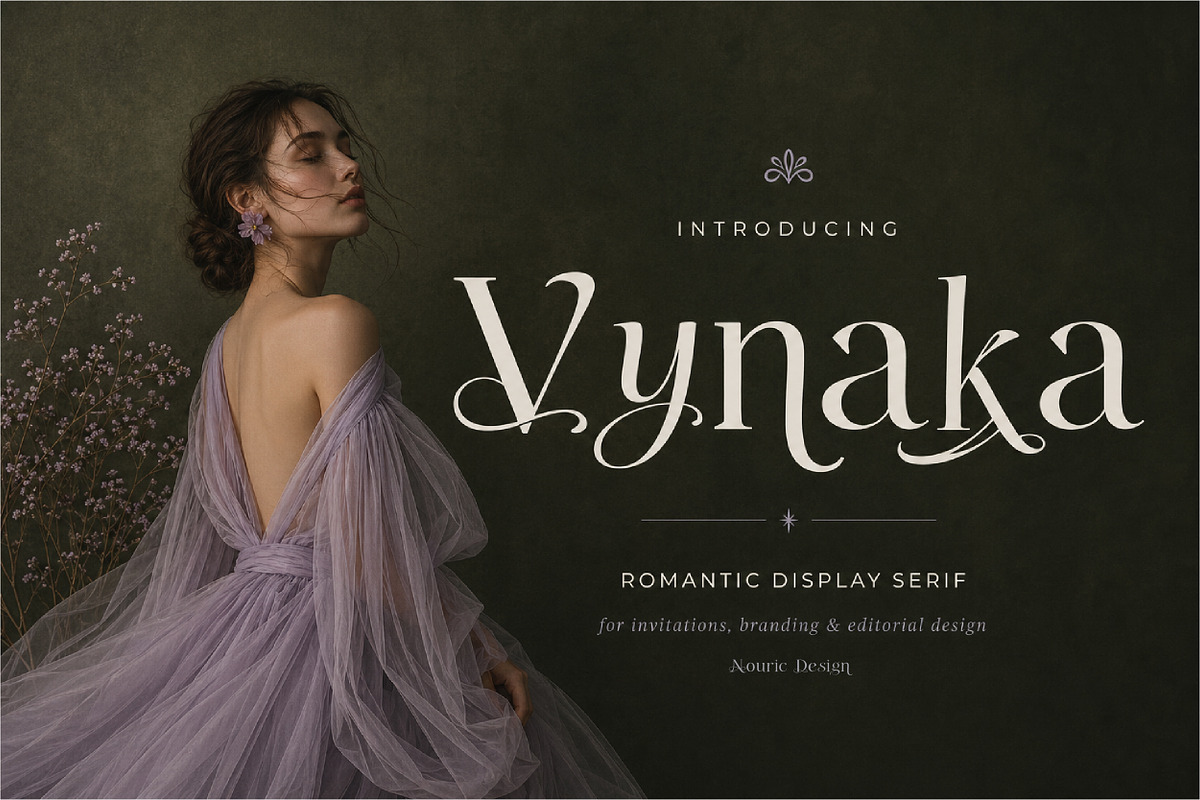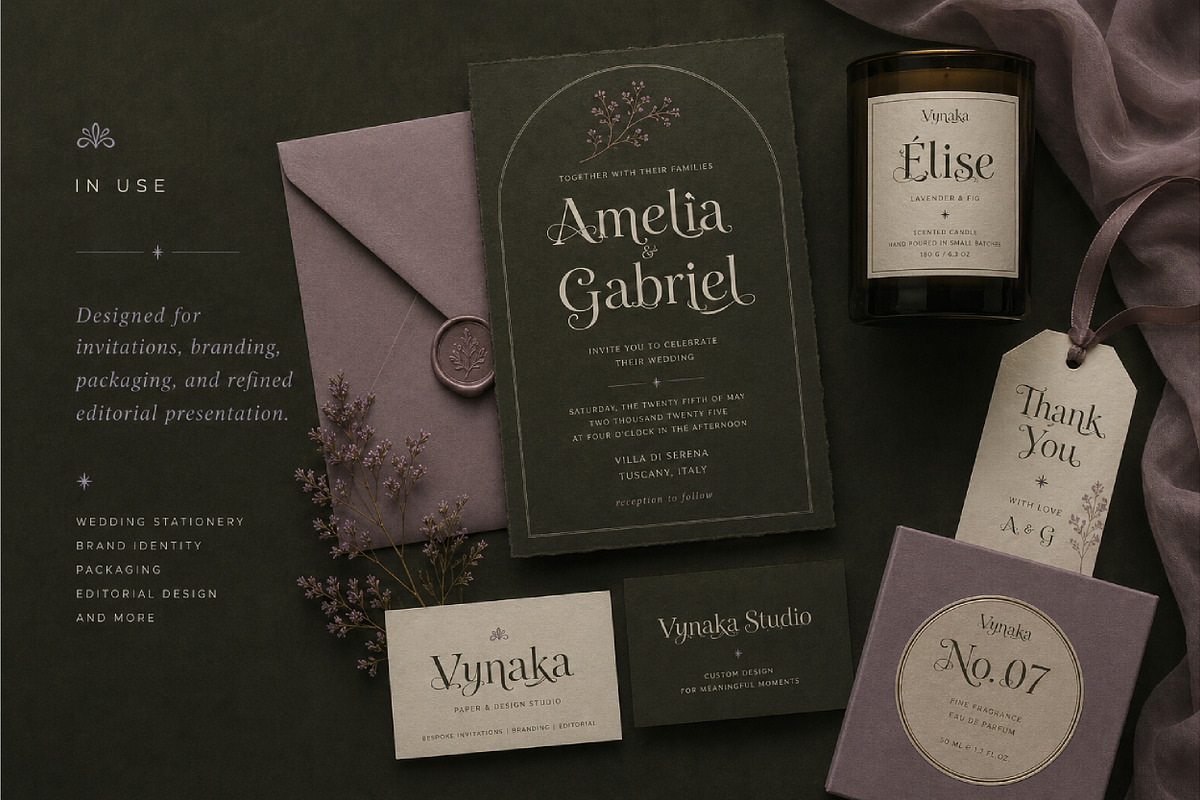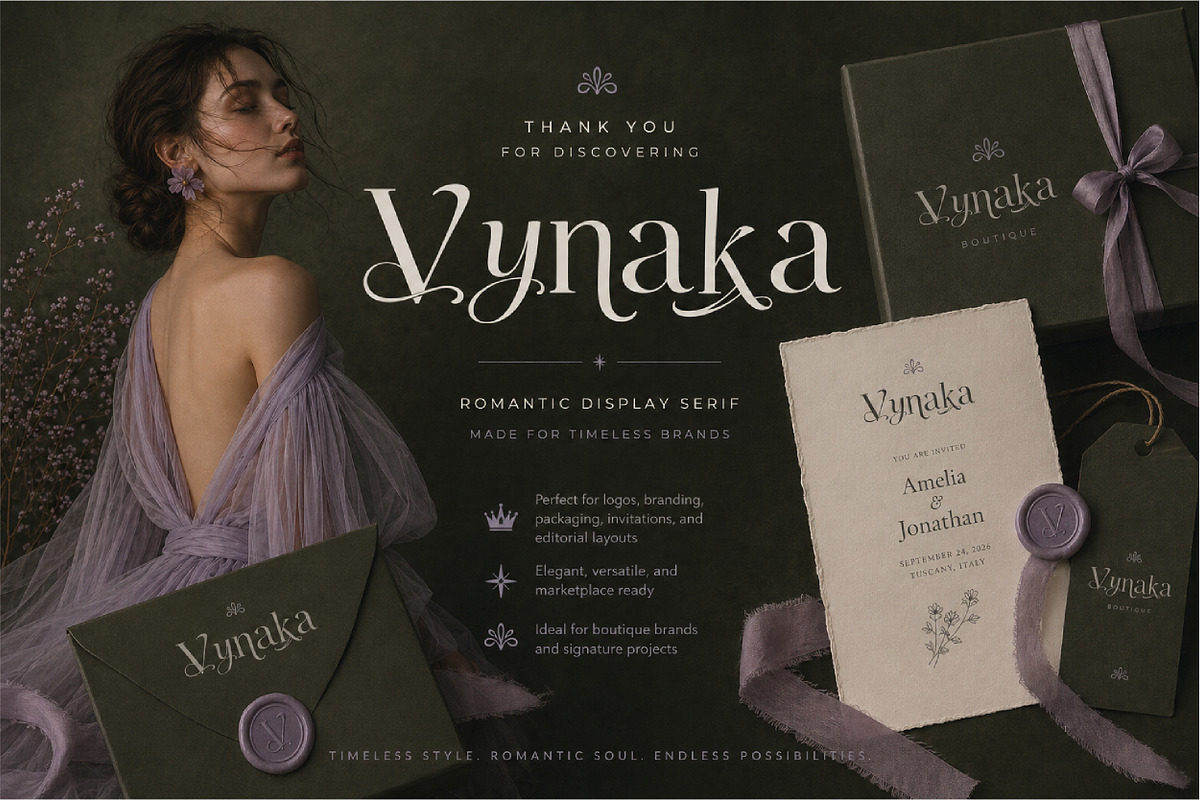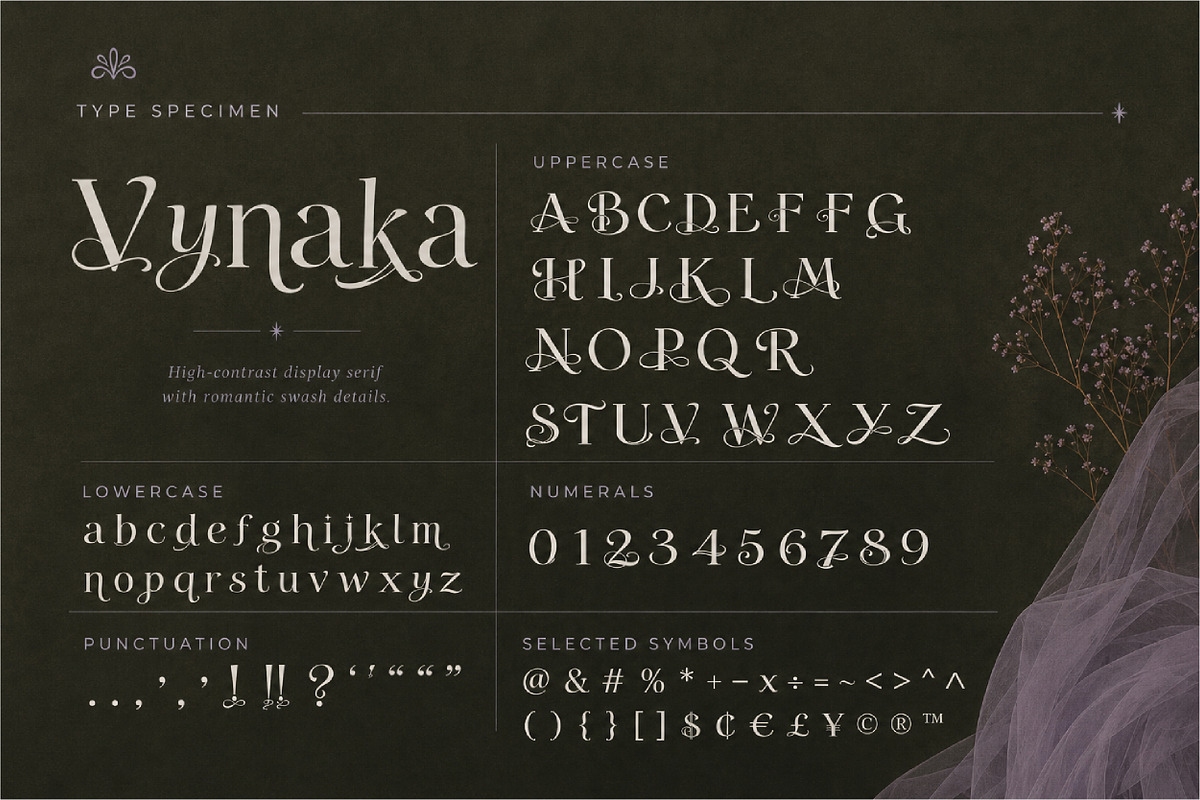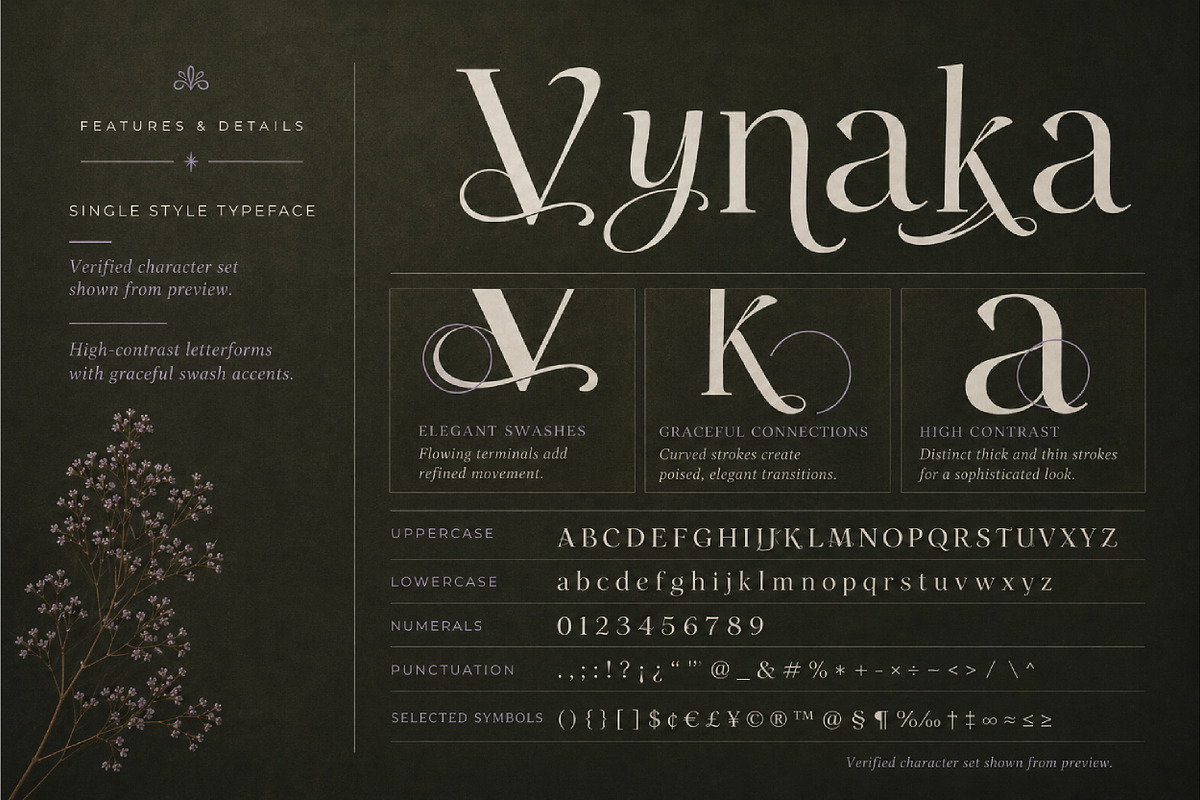
Vynaka Romantic Display Serif
Vynaka is a romantic display serif font with elegant swashes, high-contrast details, and a luxurious editorial feel.
It is perfect for creating premium wedding invitations, feminine logos, boutique branding, packaging labels, stationery, product tags, and social media designs.
Designed for wedding designers, brand creators, Font sellers, packaging designers, and digital product makers who want their work to look refined, memorable, and high-value.